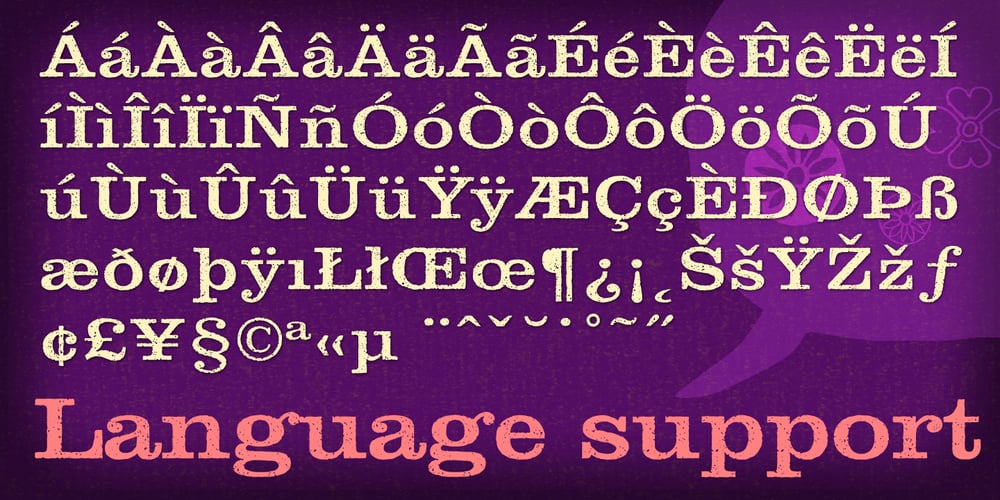
Clarendon Rough Font Family was designed by Jeff Kahn and published by Jeff Kahn. Clarendon Rough contains 1 styles and family package options. Clarendon Rough is suitable for display and text. Its large x-height provides excellent legibility at small point sizes. Clarendon Rough is extended, aged to perfection, iconic, rugged, distressed, direct, and suitable for packaging, restaurant use, websites, magazines, lively headlines.